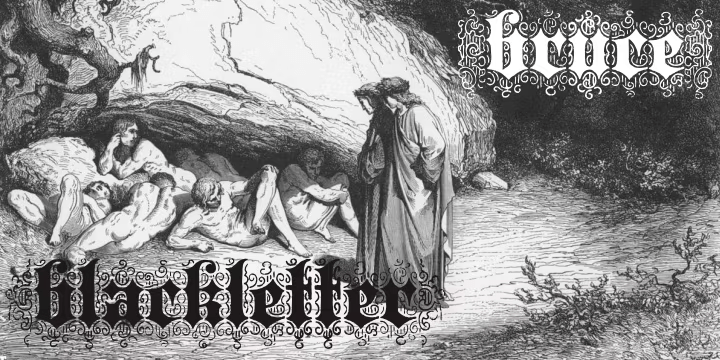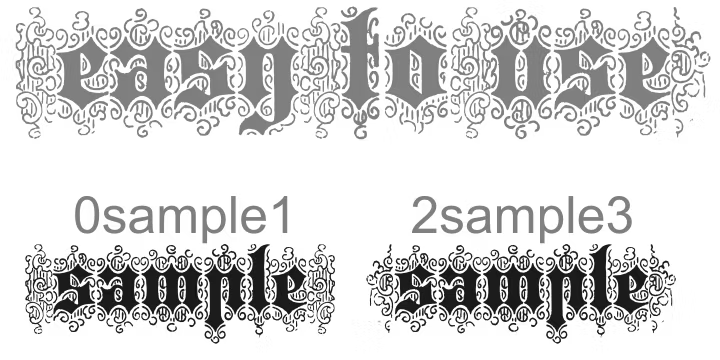
Bruce 532 Blackletter
A classic font design remastered by the type foundry Intellecta Design, from the extra-rare Bruce’s New York typefoundry from 1882.
Distressed and antique, use this font in display purposes for a stylized type design. Great display face for headers and antique-like projects. Contains a limited amount of letter designs.
Using the “0” and “2” keys you get two different fleurons to start words. Use “1” or “3” keys to close words with fleurons.